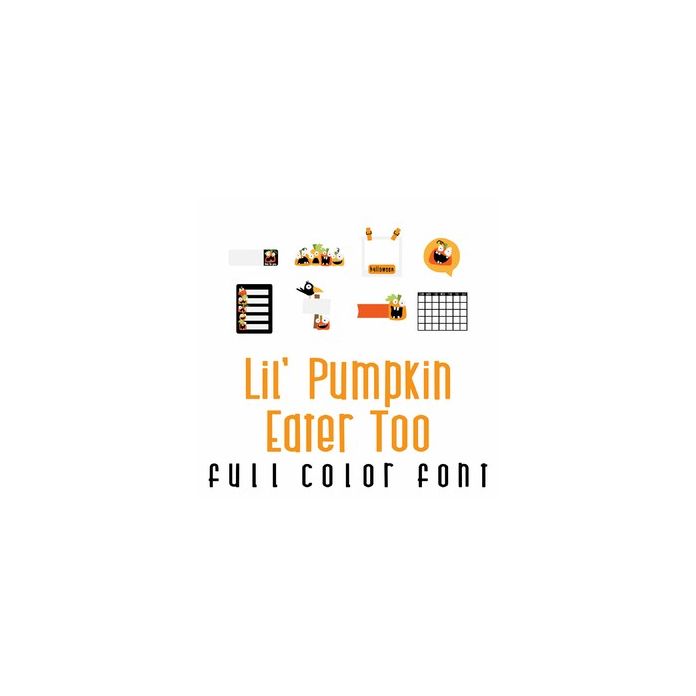
This fun full color doodlebat font features 26 journaling images complimenting our Lil' Pumpkins full color font. Perfect for Halloween, crafts, gifts, decor, planner stickers, scrap book pages and more!